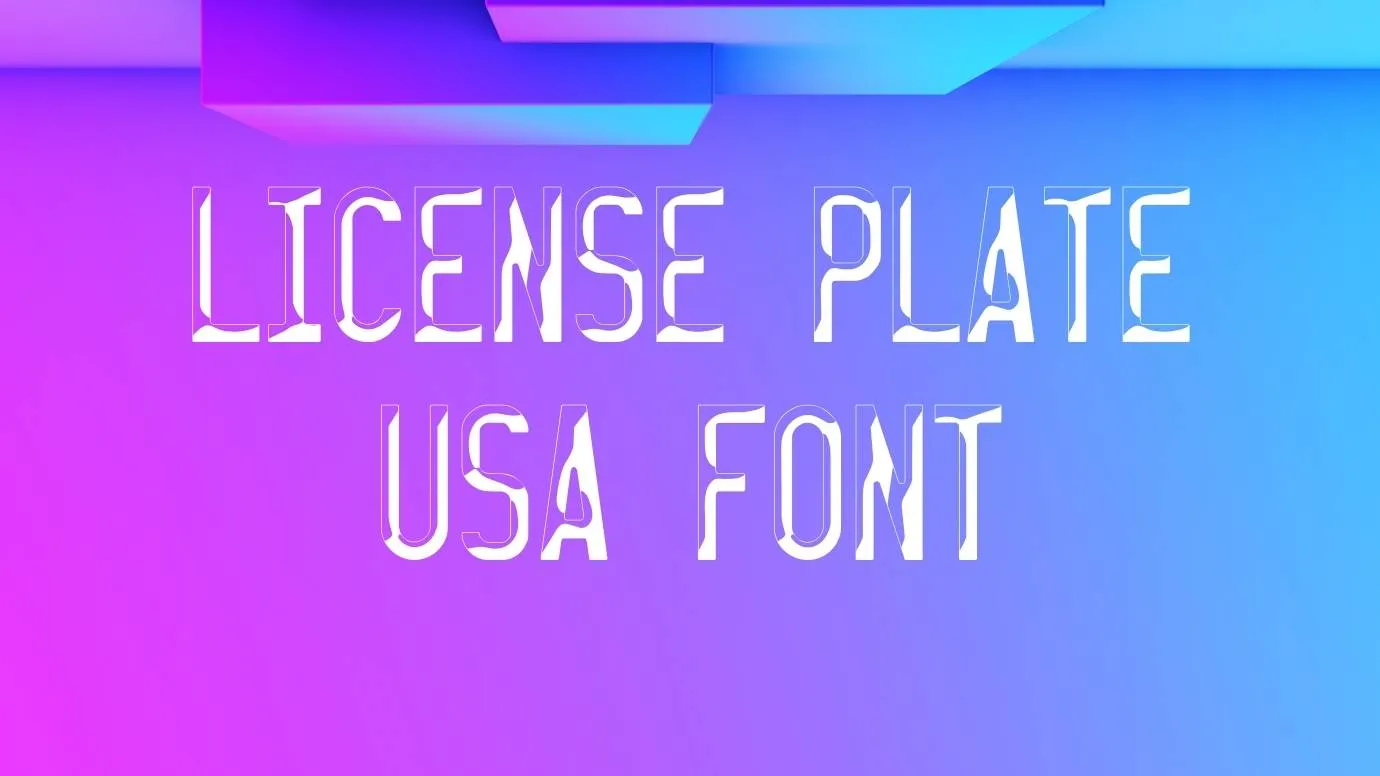
License Plate USA Font Family was designed by SpideRaYsfoNtS. It consists of lowercase letters and symbols. It was initially used for an album in 2017 that was founded by lady Gaga known as jaanne.
It has many similar fonts that are best for pairing this font and creating multiple similar designs but the blacklisted font is the perfect alternative to this typeface.